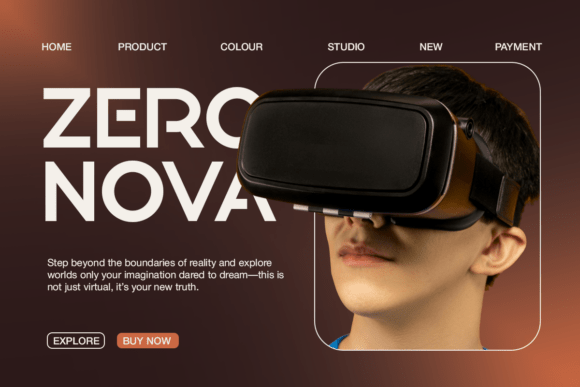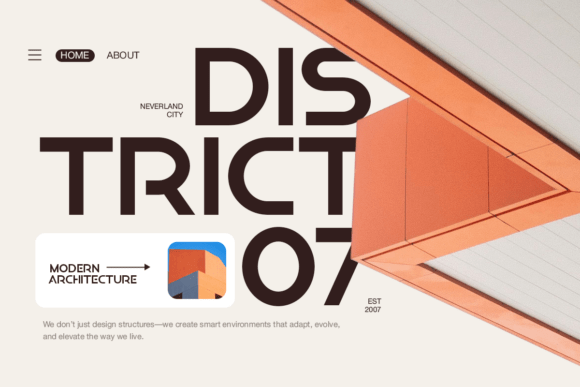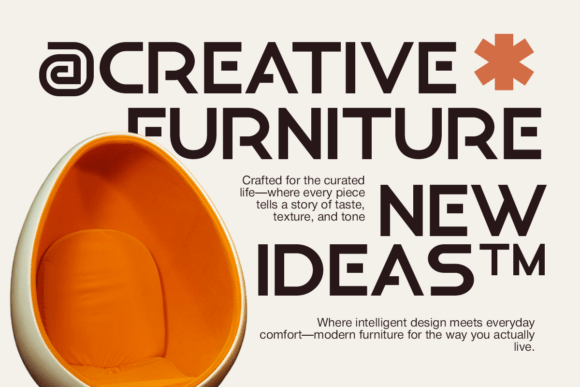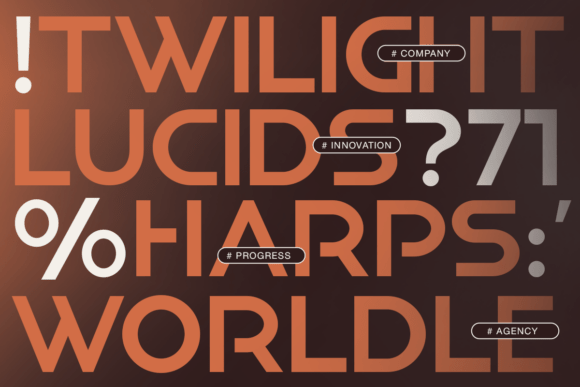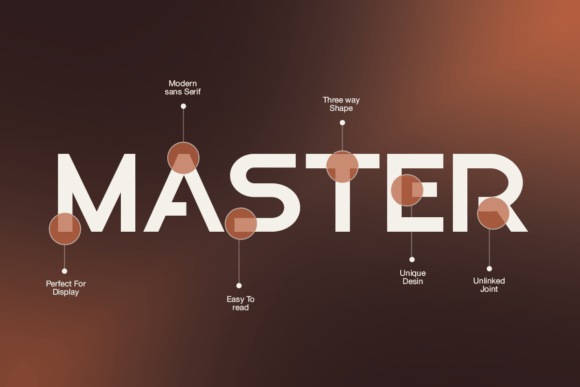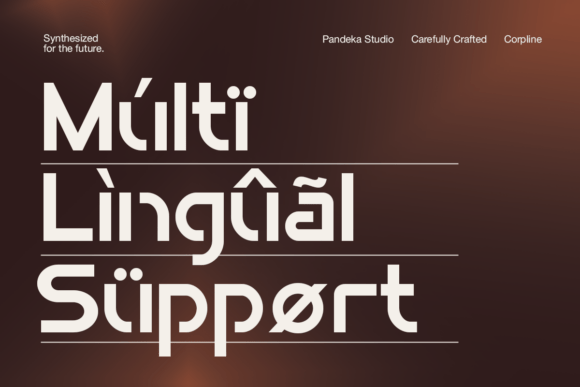
Unlocking the Future of Digital Branding with Corpline Font
Have you ever found yourself staring at a blank canvas, waiting for that spark of inspiration to strike and bring your creative project to life? For designers, this moment can be both exhilarating and intimidating. But what if the key to unlocking your next big idea lay in the perfect font? Enter the Corpline Font, a sleek and modern sans-serif typeface designed to take your digital branding to the next level.
With its geometric construction and wide letter spacing, Corpline Font embodies the very essence of innovation and clarity. Whether you’re working on a tech startup, architecture studio, VR/AR application, or modern UI/UX project, this design resource is sure to elevate your creative vision. And the best part? It’s available for free download, making it an accessible high-quality design tool for designers of all levels.
Key Features of Corpline Font
- Transparent background, allowing for seamless integration into various design elements.
- Designed with a unique aesthetic, making it perfect for creative projects that require a touch of elegance.
Honest Review: Corpline Font
I recently had the chance to work with the Corpline Font, and I must say it’s been a game-changer for my design projects. The font is available for free download, making it a great resource for designers on a budget.
One of the standout features of the Corpline Font is its versatility. It’s perfect for both creative projects that require a modern touch and more traditional designs that need a touch of elegance. I love how the font’s high-quality design and transparent background make it easy to work with.
- May not be suitable for projects that require a lot of bold typography
- Some users may find the font’s style a bit too modern or trendy
Overall, I’m really impressed with the Corpline Font. It’s a great addition to any designer’s toolkit, and I highly recommend it for anyone looking for a high-quality, free font.
Common Use Cases for Corpline Font
Corpline Font is a versatile font that can be used in a variety of creative projects, including:
- Business cards and marketing materials.
- Web design and development.
- Print design and publishing.
- Graphic design and visual arts.
Alternatives to Corpline Font
Montserrat is a high-quality, sans-serif font ideal for creative projects that require a clean and modern look. It’s free to download and offers a transparent background, making it perfect for digital designs. Montserrat is a great alternative to Corpline Font when you need a more versatile font for headings and body text.
Compared to Corpline Font, Montserrat is more geometric and has a larger x-height, making it easier to read in smaller sizes. It’s also more widely supported across different platforms and devices.
Open Sans is a popular, free download font that’s perfect for design resources like brochures, posters, and presentations. It has a friendly and approachable feel, making it ideal for creative projects that require a human touch. Open Sans is a great alternative to Corpline Font when you need a font with a more casual and conversational tone.